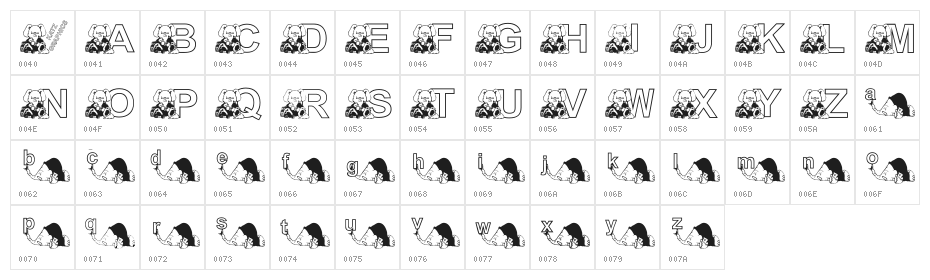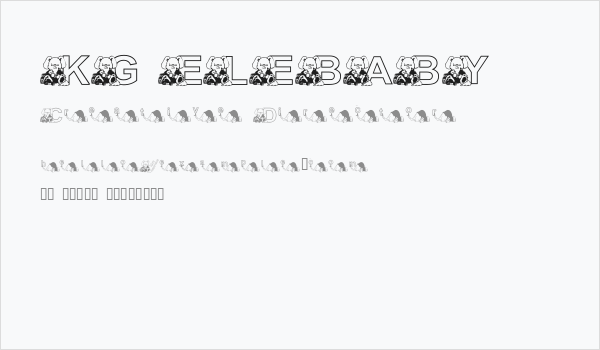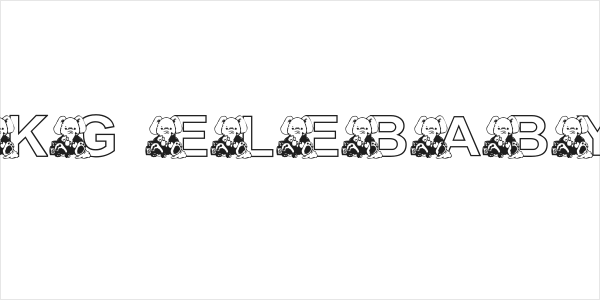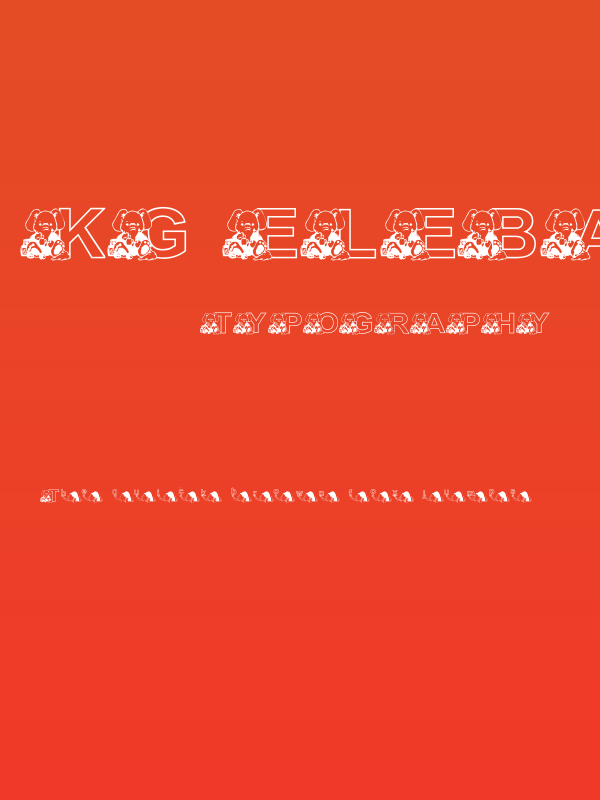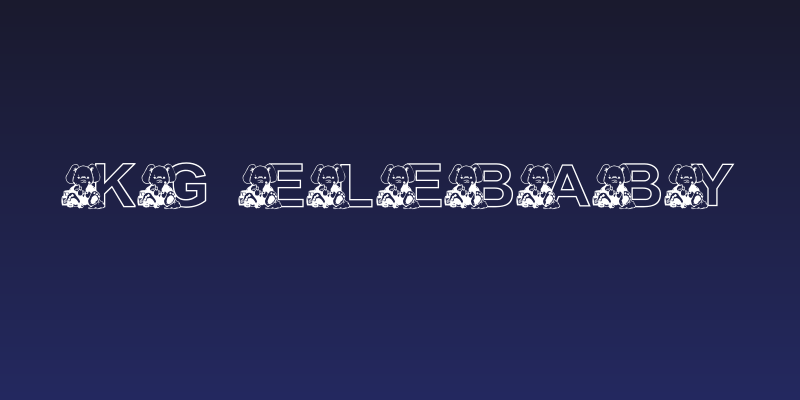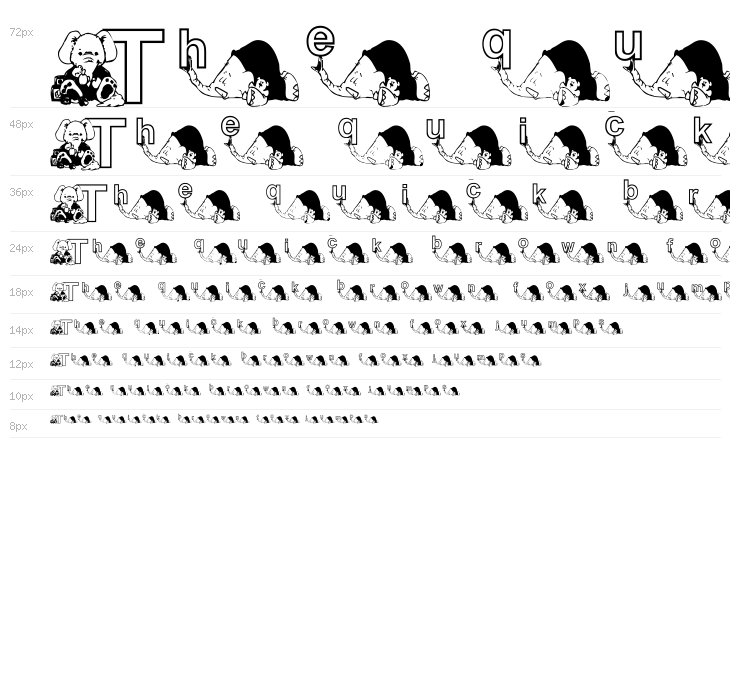
KG ELEBABY Font
KG ELEBABY Description
This playful and whimsical font features a charming elephant character integrated into each letter, creating a unique and engaging design. The uppercase letters are bold and outlined, providing a strong visual presence, while the lowercase letters maintain a consistent style with the elephant motif. The font includes numbers and a selection of special characters, all following the same delightful theme. This design is perfect for projects that require a fun and lighthearted touch, such as children's books, educational materials, or playful branding.
| Use Case | Headlines, Logos, Decorative text |
| Proposed Projects | Ideal for children's books, educational materials, playful branding, and party invitations. |